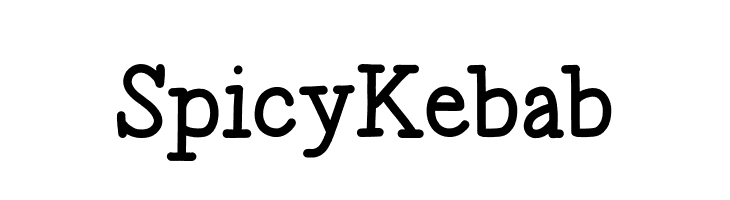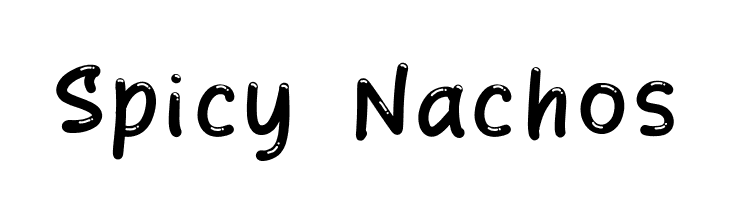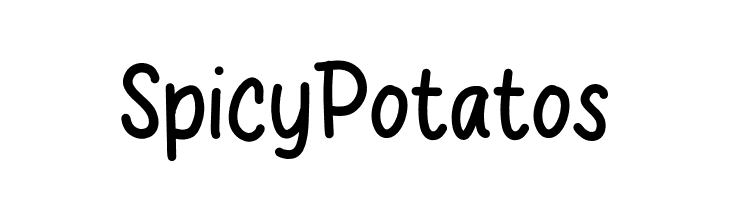
A bold, handwritten font with a dynamic, brush-like texture.
A playful, pirate-themed font with quirky serifs and a hand-drawn style.
A bold, playful script font with smooth, rounded strokes and a dynamic slant.
A clean, bold font perfect for labeling and organizing.
A bold, textured font with a rugged, vintage appearance.
A dynamic, flame-inspired font with sharp, jagged edges.
A bold, edgy font with sharp, angular strokes and dynamic energy.
A playful, bold font with rounded edges and a hand-drawn feel.